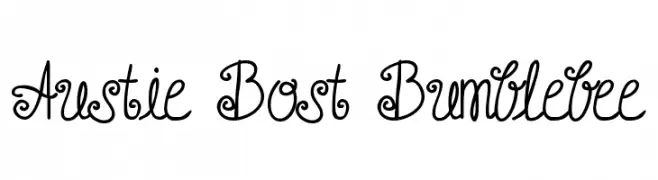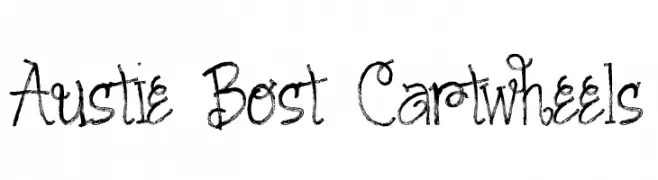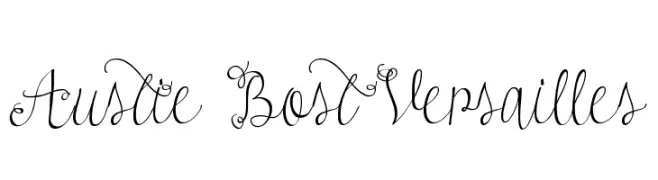
A playful, bold script font with a handwritten style.
A playful, cursive script font with a whimsical and elegant style.
Playful, narrow handwritten font.
Bold, playful handwritten font with a festive, casual vibe.
A bold, geometric font with high contrast and unique character shapes.
A bold, striped decorative font with a modern and dynamic style.
A dynamic, striped font with bold strokes and a modern, energetic style.
A bold, distressed gothic-style font with a dramatic and textured appearance.
A bold, geometric font with sharp edges and a modern aesthetic.
A playful, hand-drawn font with irregular, whimsical letterforms.
A playful, hollow, and outlined font with bold, rounded characters.
A bold, three-dimensional font with a vintage, comic book style.
A bold, jagged font with a horror and gothic theme.
A bold serif font with a modern twist, featuring elegant curves and strong vertical lines.
A chaotic, hand-drawn font with irregular, jagged strokes and a graffiti-like style.
A bold, modern font with clean lines and a strong presence.
A classic serif font with a calligraphic touch, offering elegance and versatility.
A bold, geometric, and abstract font with a modern artistic flair.
A playful, eye-themed font with a whimsical and animated style.
A bold, geometric font with angular shapes and a modern, industrial style.
A decorative, geometric font with a pixelated, abstract design.
A decorative font with festive Christmas-themed elements and geometric backgrounds.
A classic italic serif font with moderate contrast and elegant style.
A bold, geometric font with a strong, block-like design.